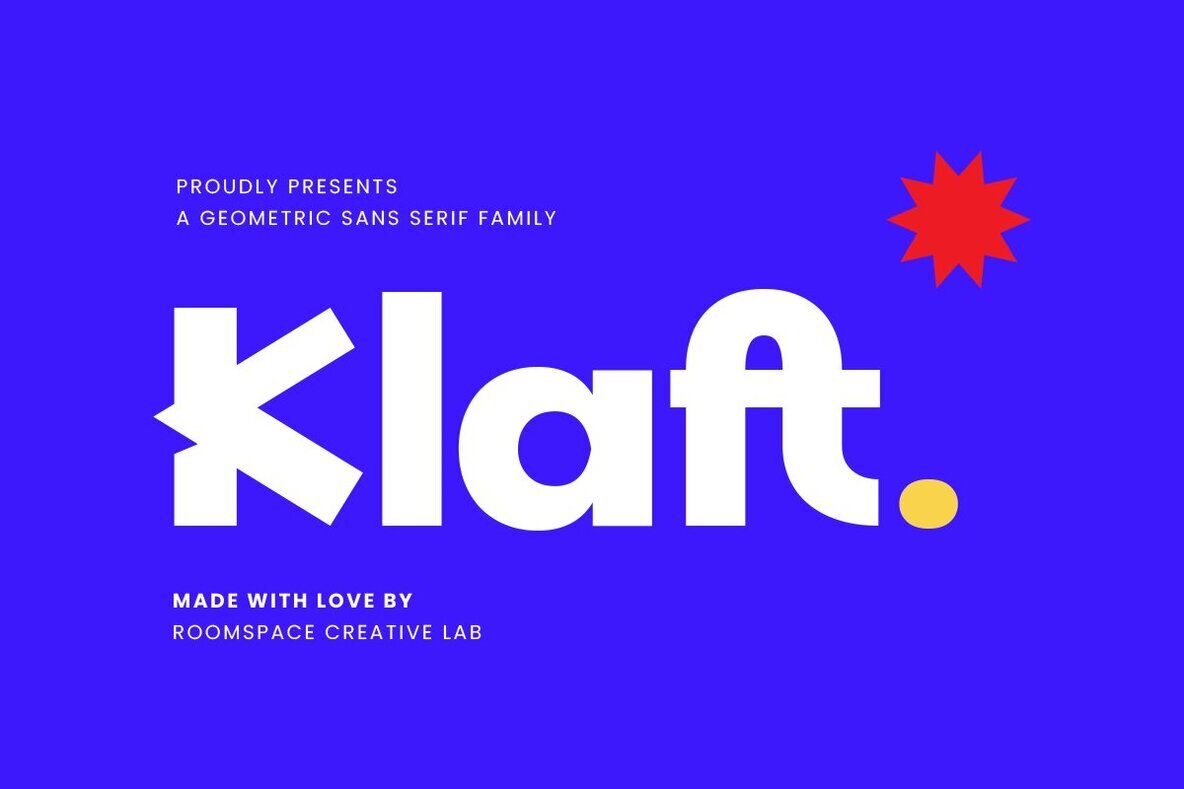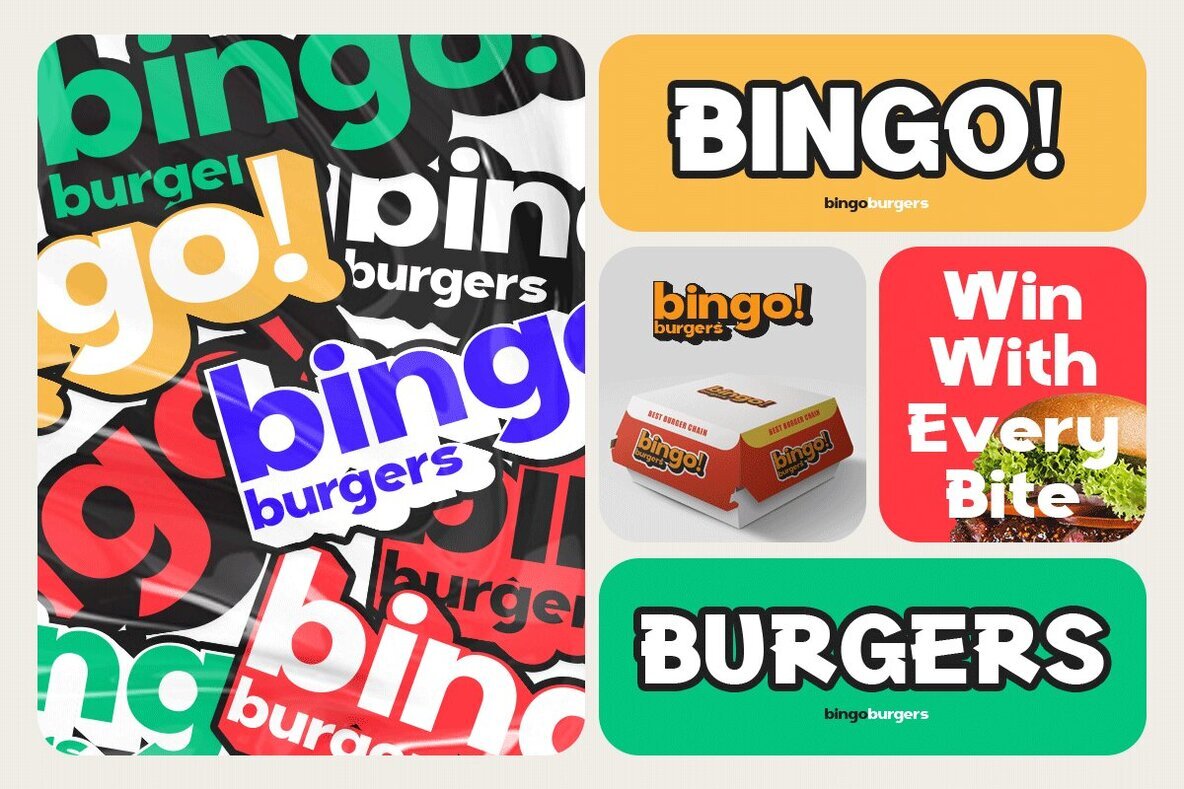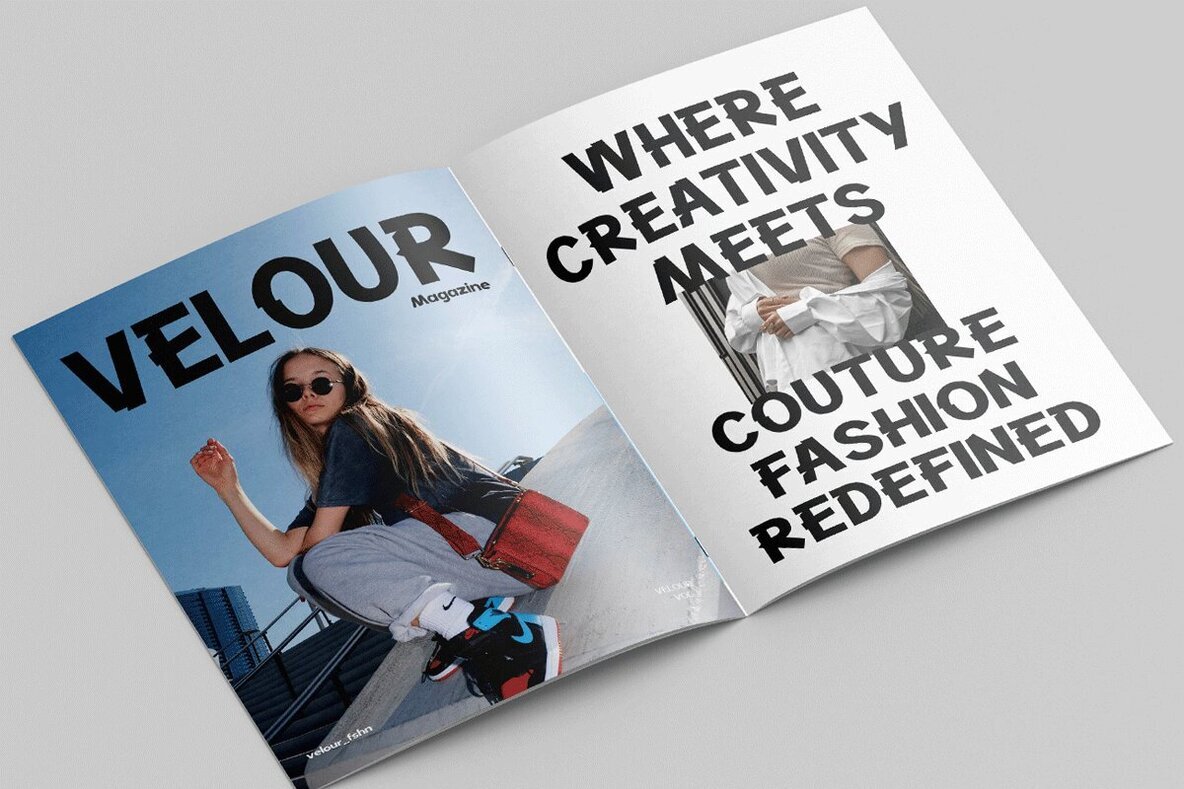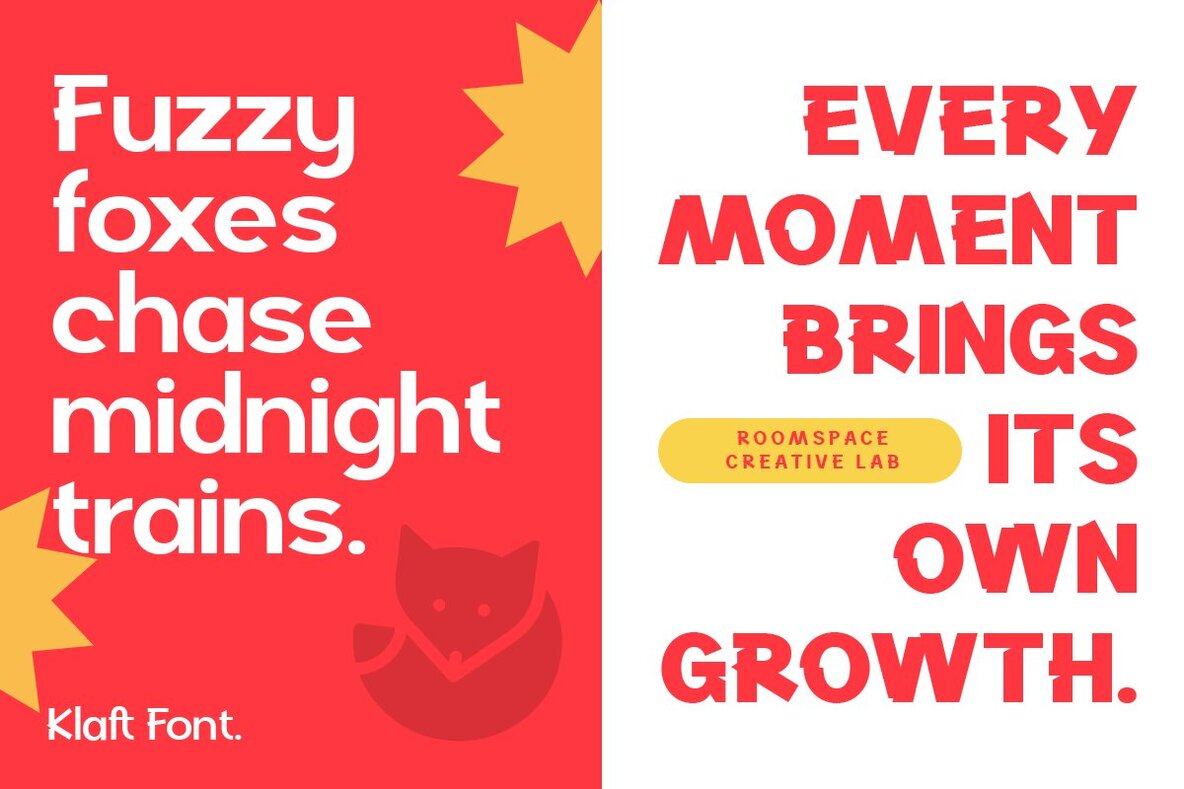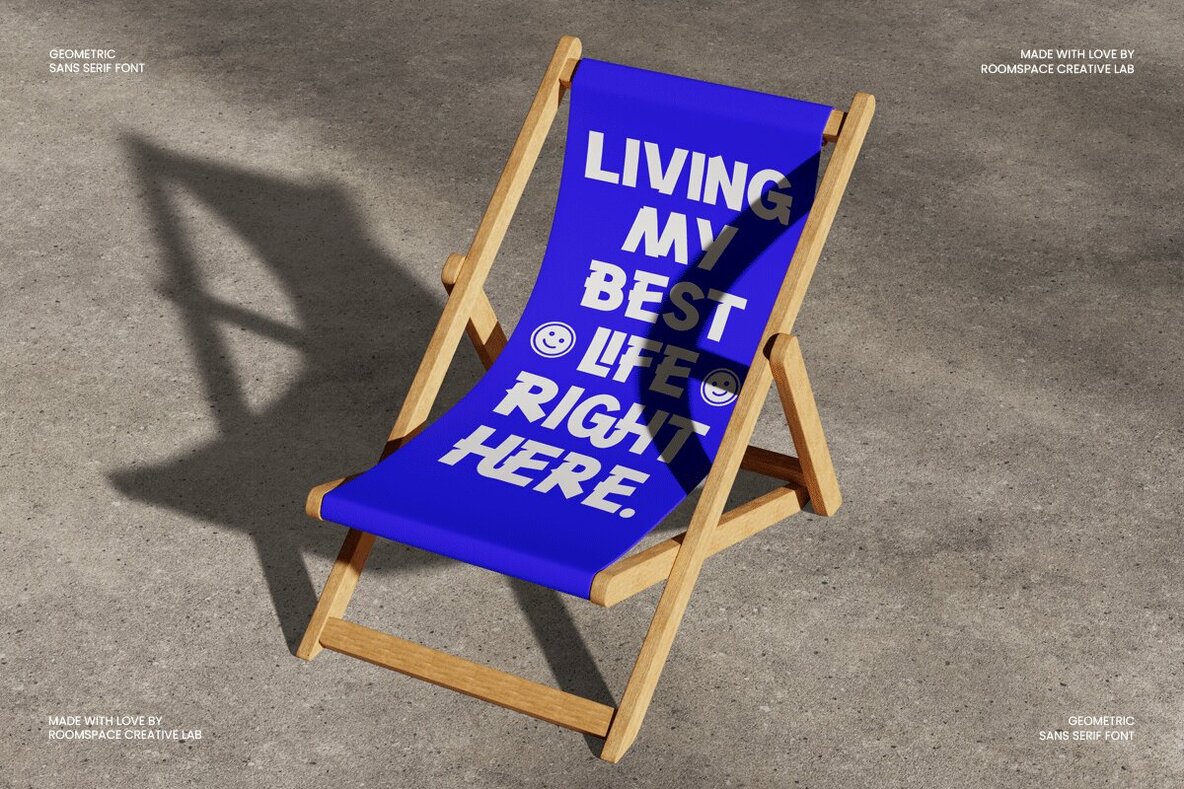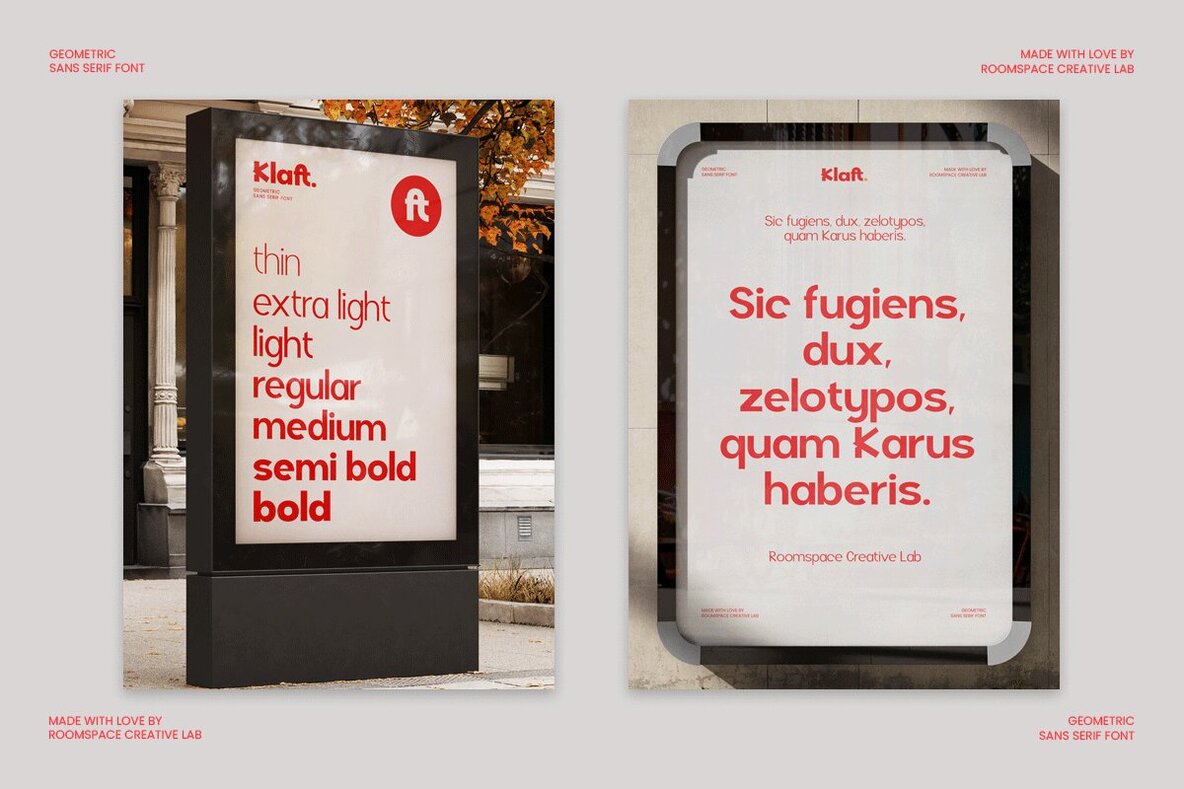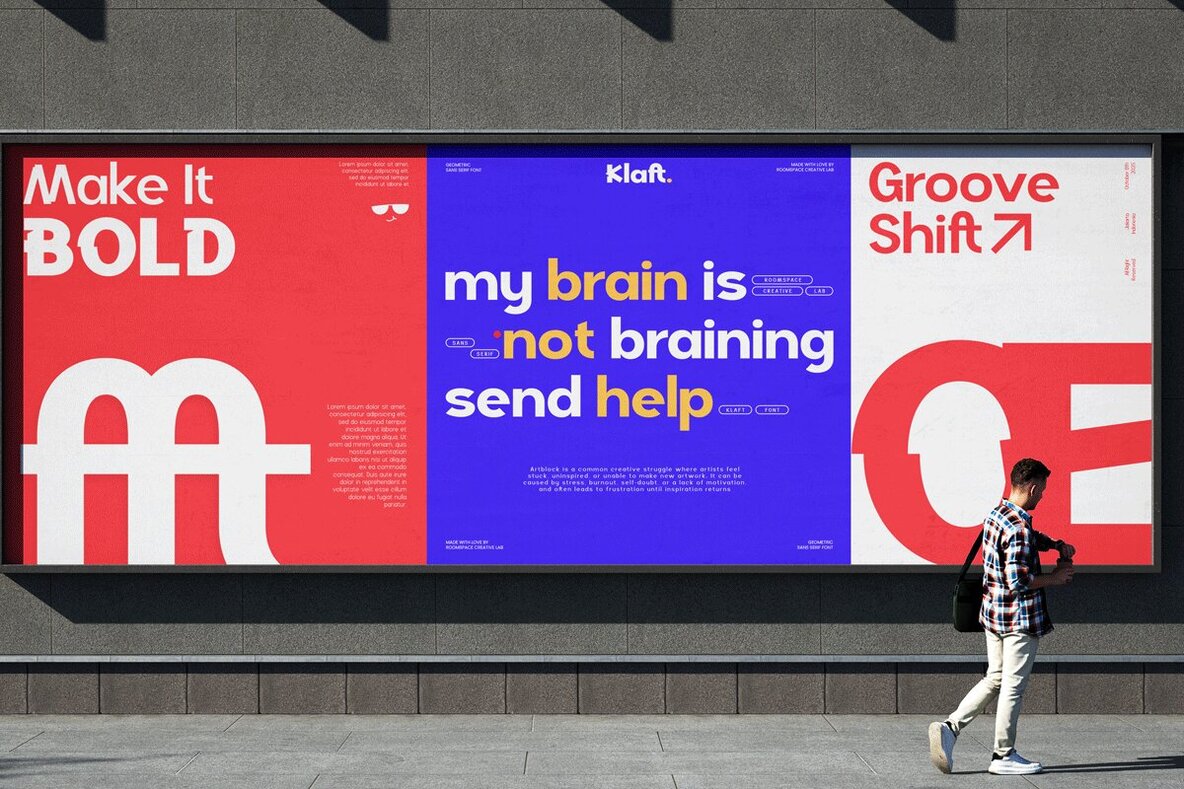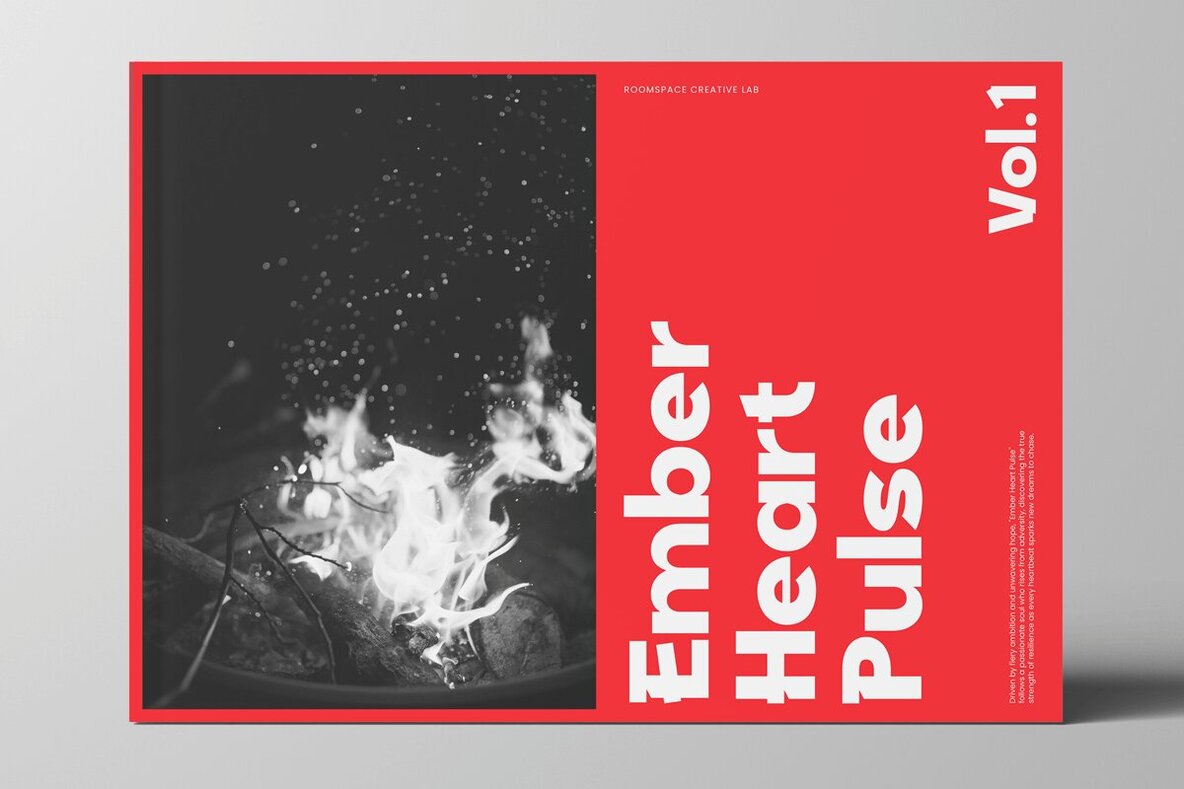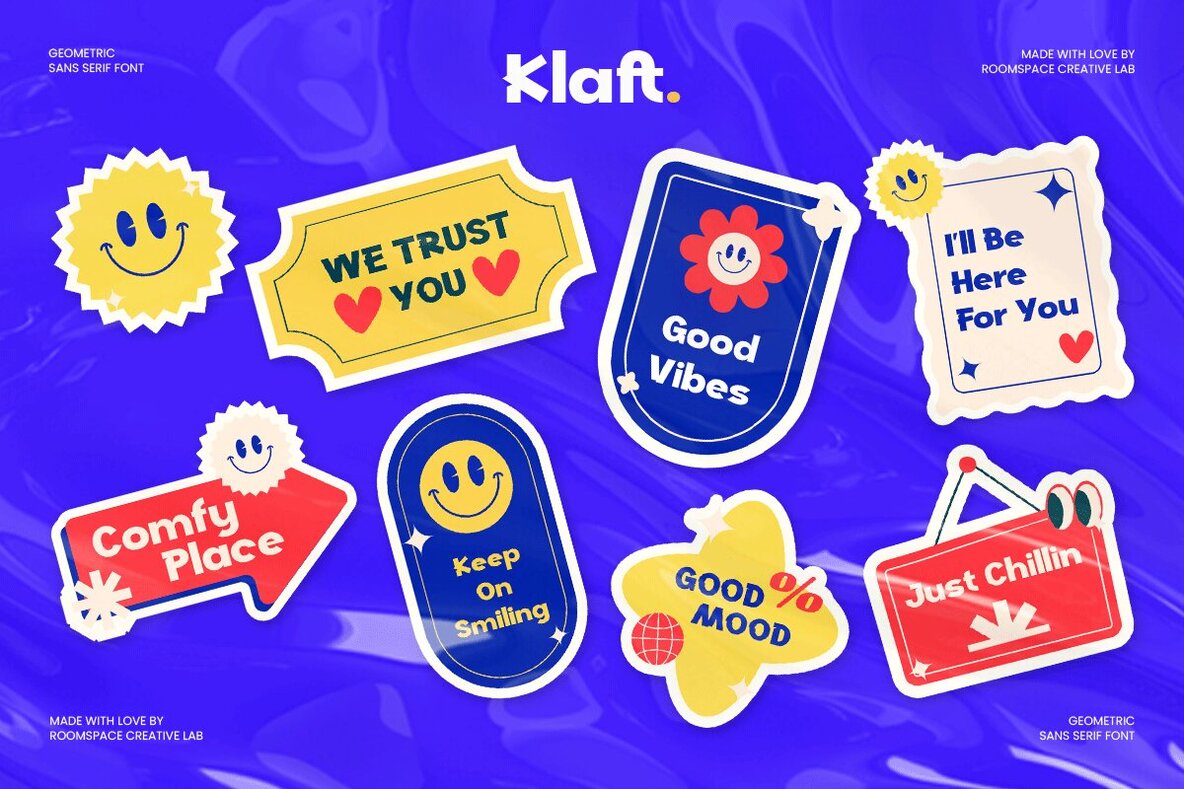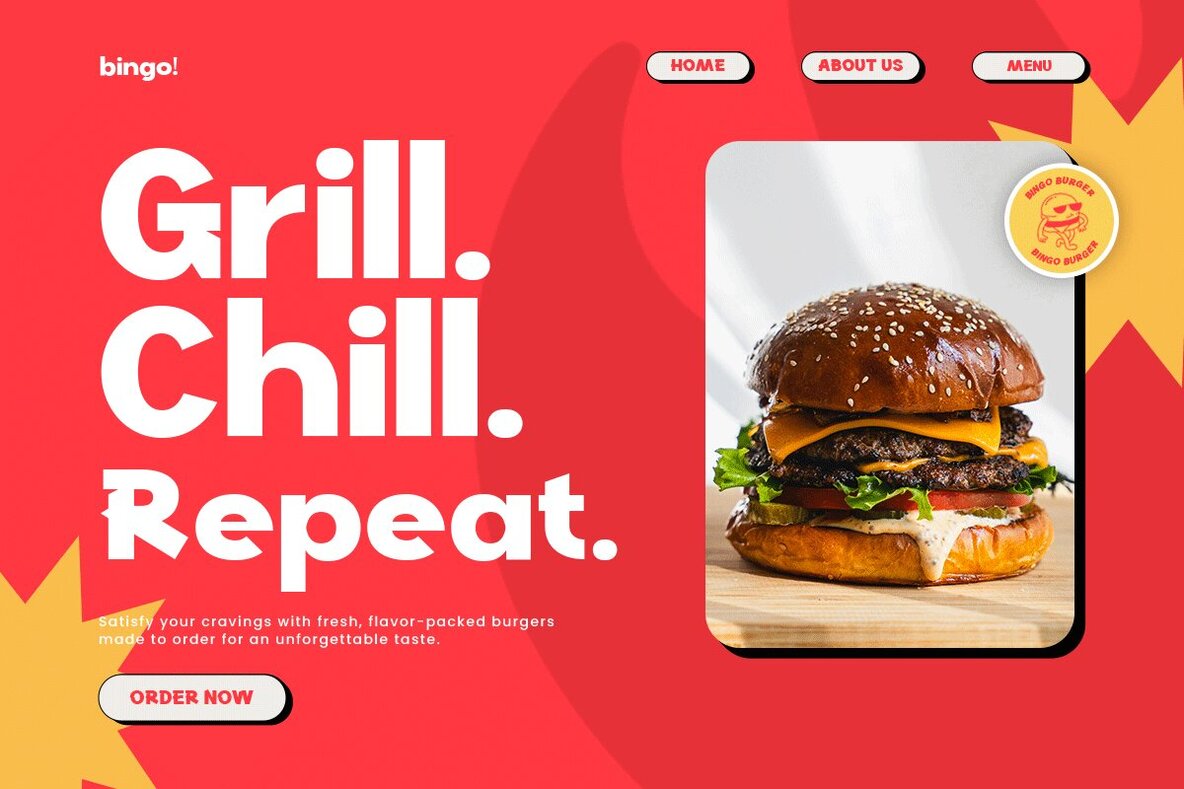
Klaft Font
Klaft stands out as a modern bold sans serif font, expertly constructed with strong geometric shapes that embody both visual balance and clarity. Ideal for digital and print use, Klaft combines simplicity with style, delivering a confident presence to any project. It's the epitome of modern professionalism, ensuring your message not only stands out but also resonates with clarity. Every detail of Klaft is meticulously designed to promote legibility and consistency. Its bold architecture empowers headlines, while the subtle geometric influences introduce a touch of warmth and accessibility. With a comprehensive character set that includes uppercase, lowercase, punctuation, numerals, and multilingual support, Klaft provides the versatility needed for diverse creative endeavors.Klaft: A Bold Sans Serif for Modern Designs